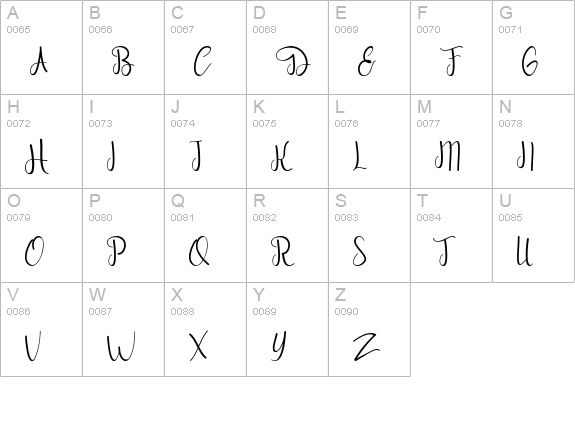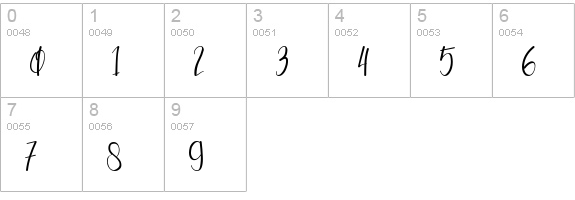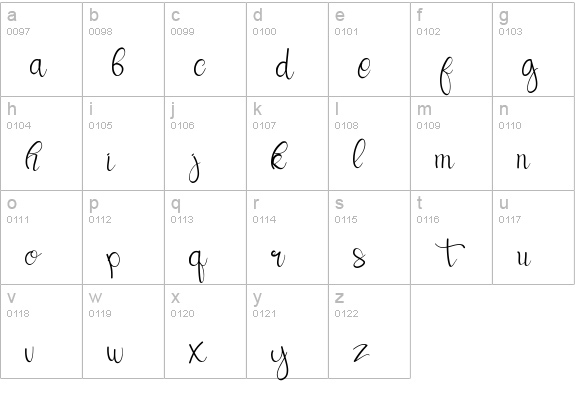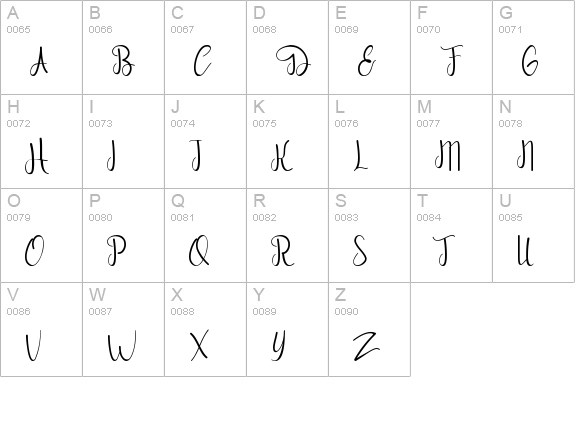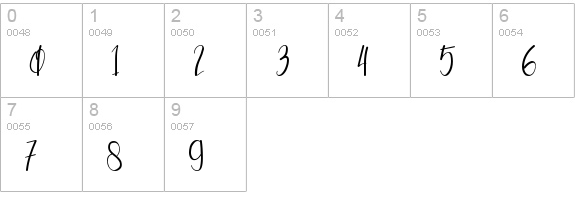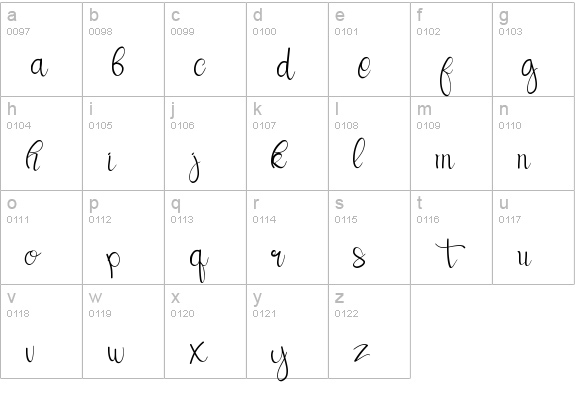
Beautype - Simple Script Font Font Details
Beautype - Simple Script Font is a free for personal use font in the Script > Handwritten category, designed by Omotu. It has been downloaded 79 times and is available for Windows, Mac and Linux.
Beautype - Simple Script Font is a stunning and elegant typeface that exudes a sense of sophistication and style. This font features beautiful cursive lettering with a modern twist, making it perfect for various design projects such as branding, invitations, posters, and more.
What sets Beautype apart is its simplicity and versatility, allowing it to be used in a wide range of design applications. Whether you're looking to add a touch of elegance to your wedding invitations or create a stylish logo for your business, Beautype is sure to impress.